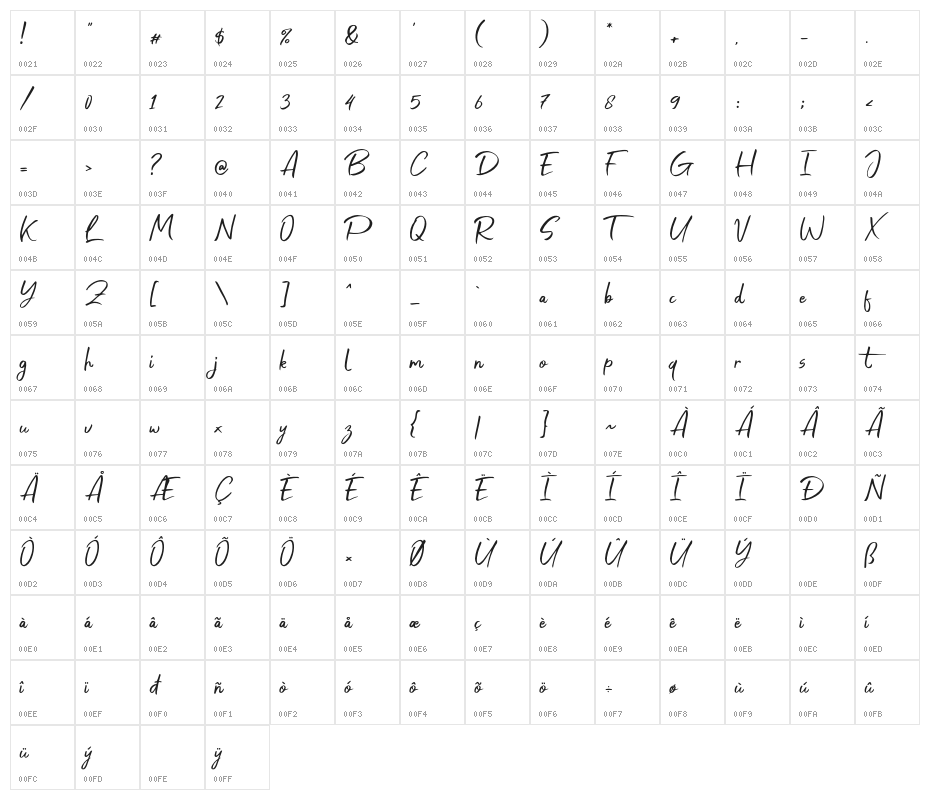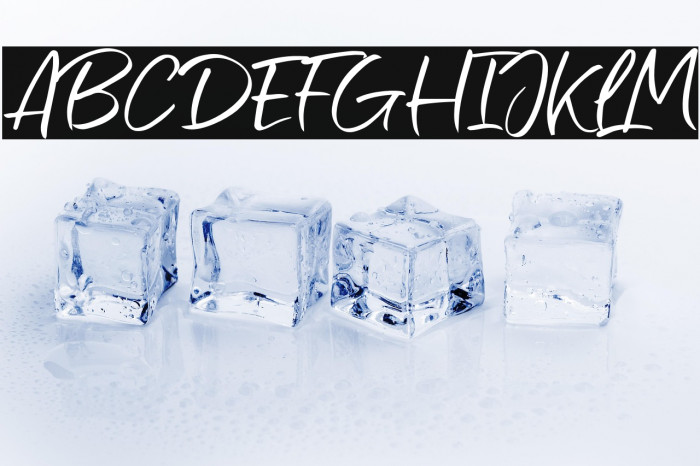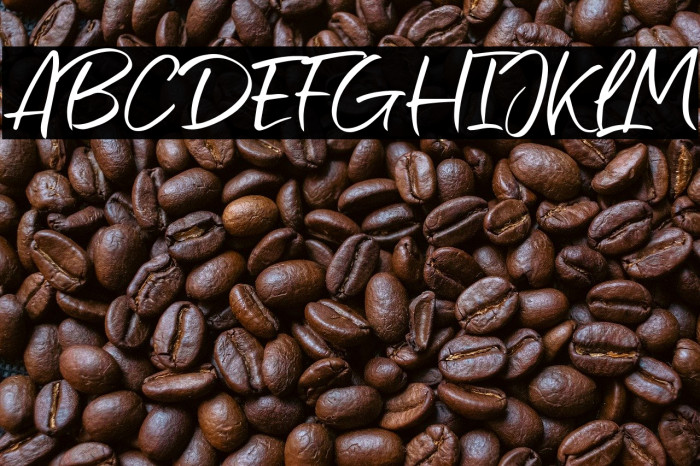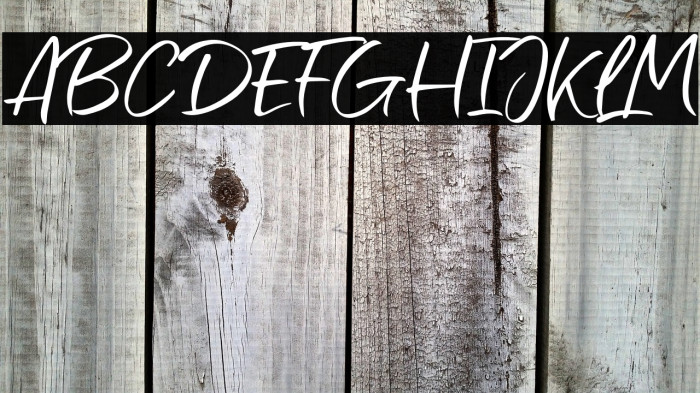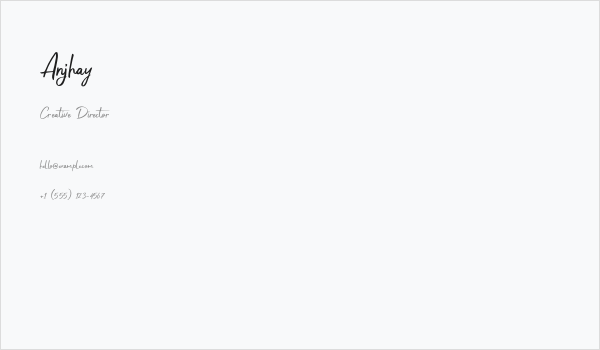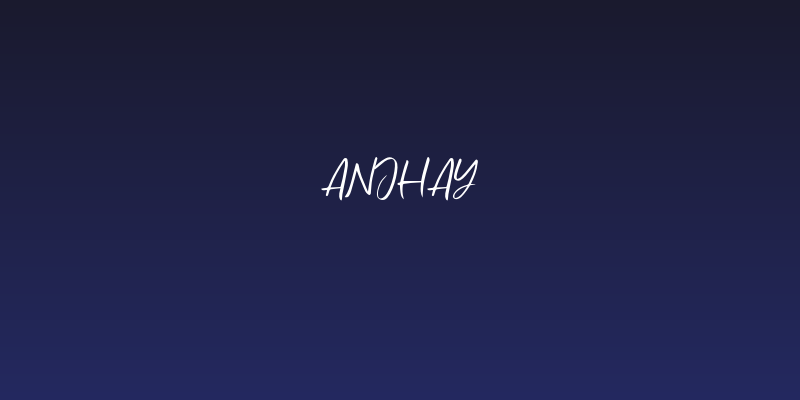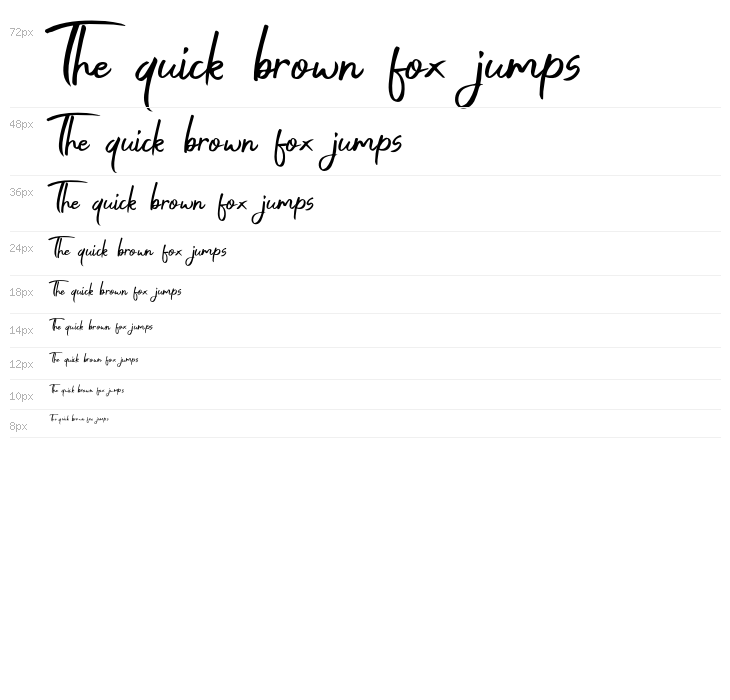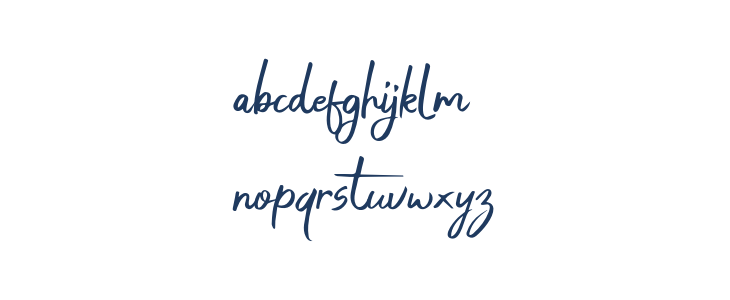
Anjhay Font
Anjhay Description
This font exudes a lively and dynamic energy with its fluid, cursive style. Each letter is crafted with a sense of motion, featuring smooth curves and elegant loops that give it a handwritten feel. The uppercase letters are bold and expressive, while the lowercase letters maintain a consistent flow, enhancing readability. The numerals and special characters are designed to match the overall aesthetic, ensuring a cohesive look across all text. This font is perfect for projects that require a personal touch, such as invitations, greeting cards, or branding materials that aim to convey creativity and warmth.
| Proposed Projects | Invitations, greeting cards, personal branding, creative logos, and artistic posters. |